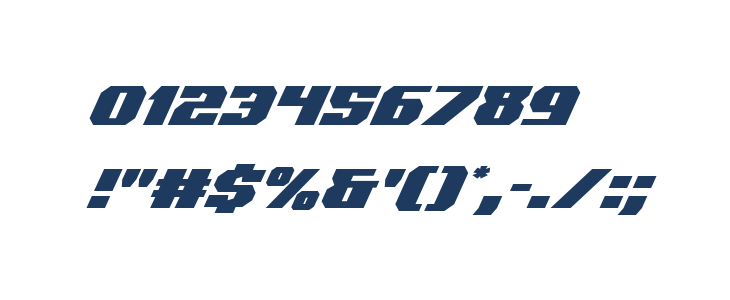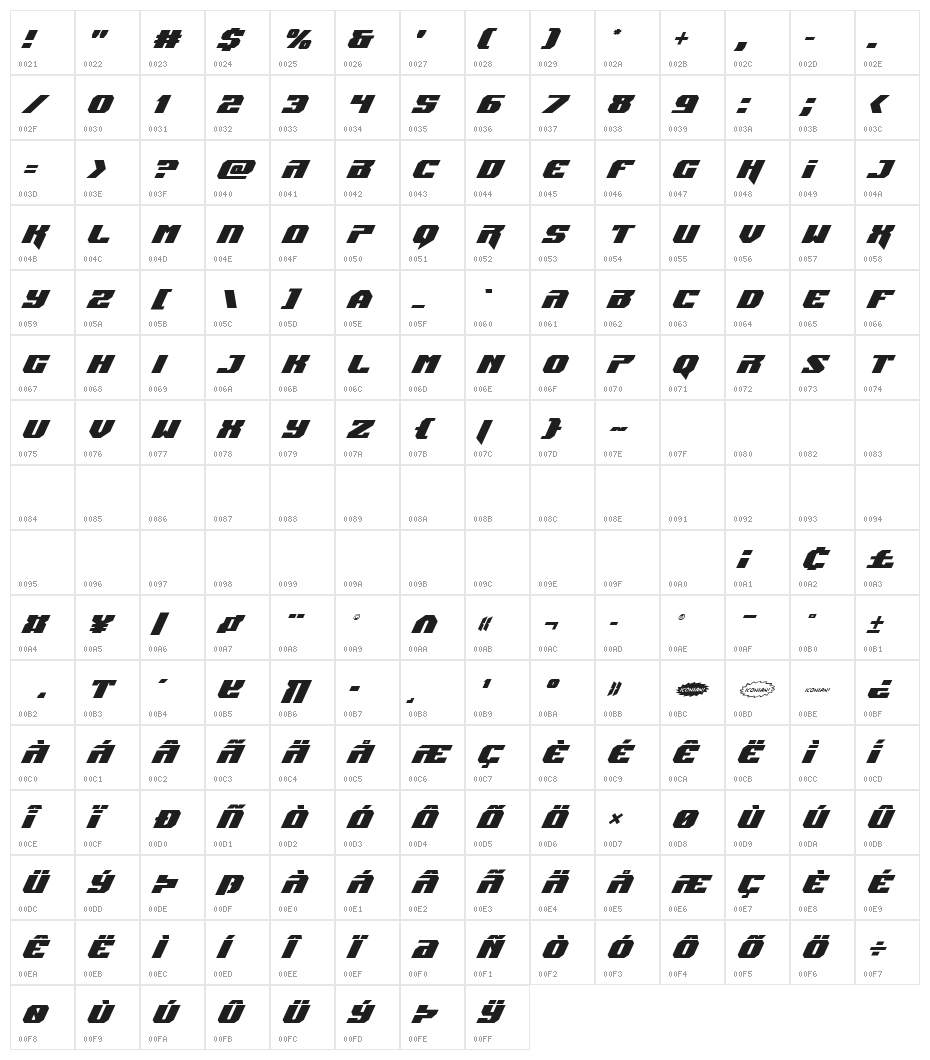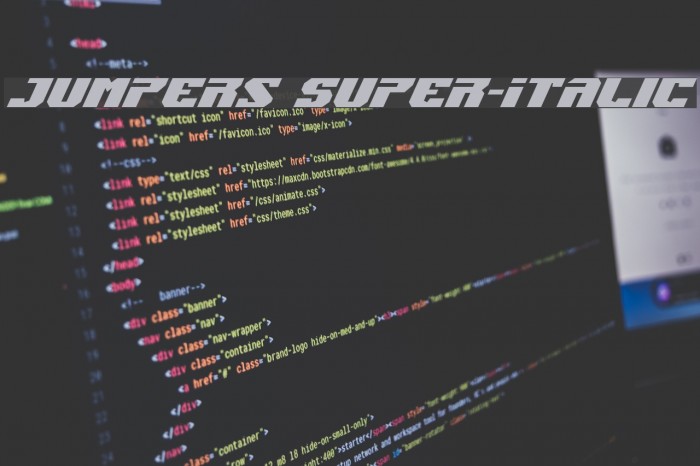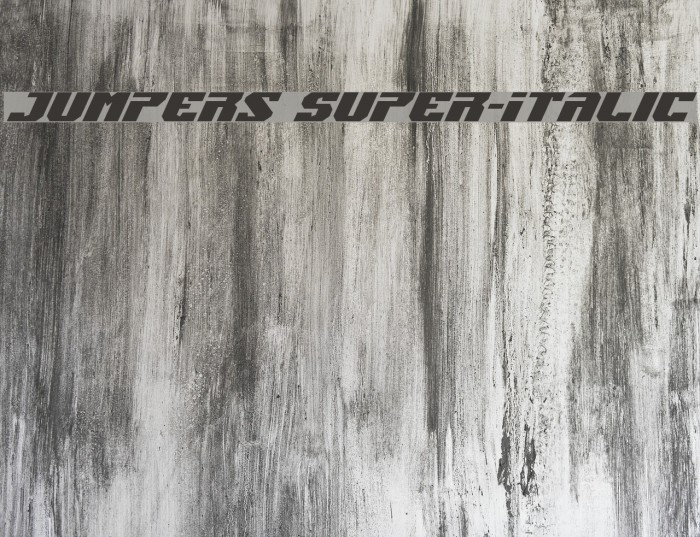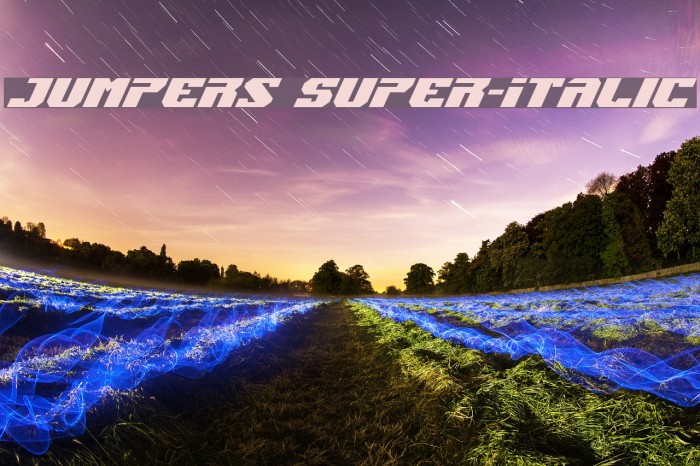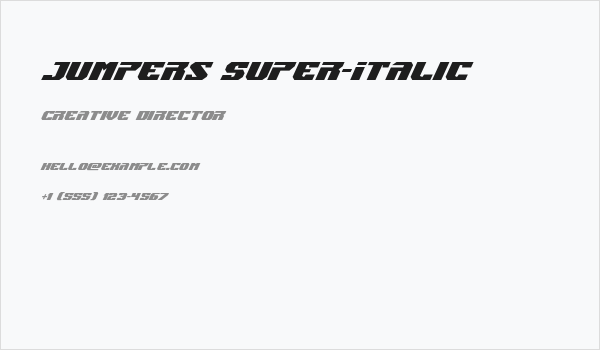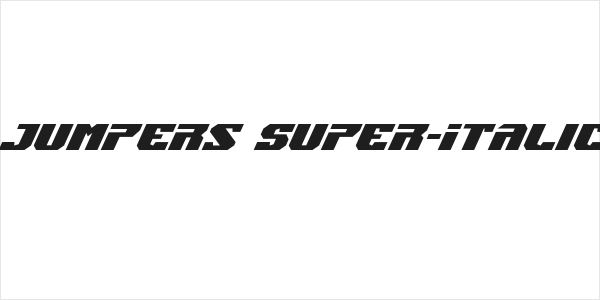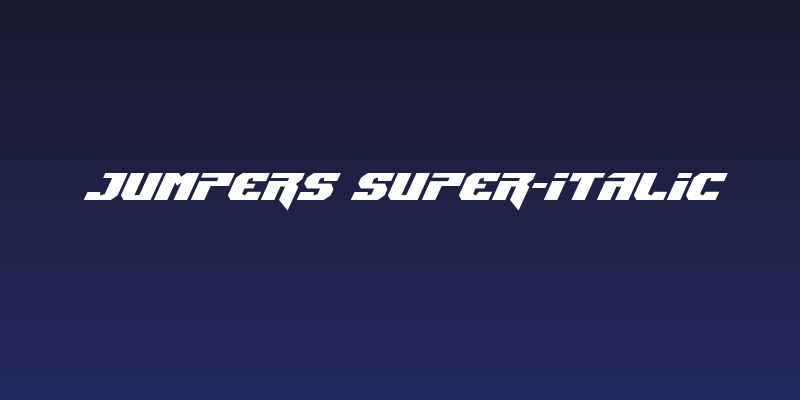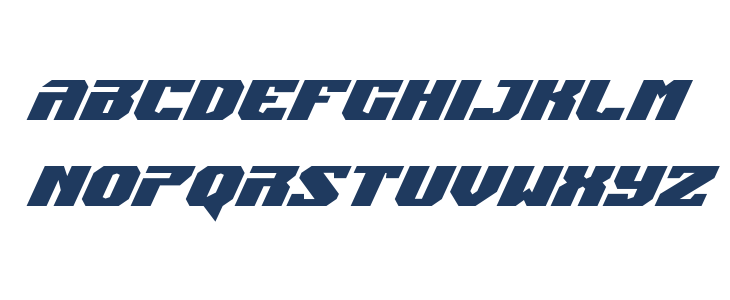
Jumpers Super-Italic Font
Jumpers Super-Italic Description
This font features a bold and dynamic style with sharp, angular edges and a forward-leaning italic slant. The characters are designed with a strong geometric influence, giving them a modern and edgy appearance. The uppercase and lowercase letters maintain a consistent style, with a distinctive emphasis on diagonal lines and pointed terminals. The numbers and special characters follow the same design principles, ensuring uniformity across all elements. The font's boldness and unique style make it suitable for projects that require a strong visual impact.